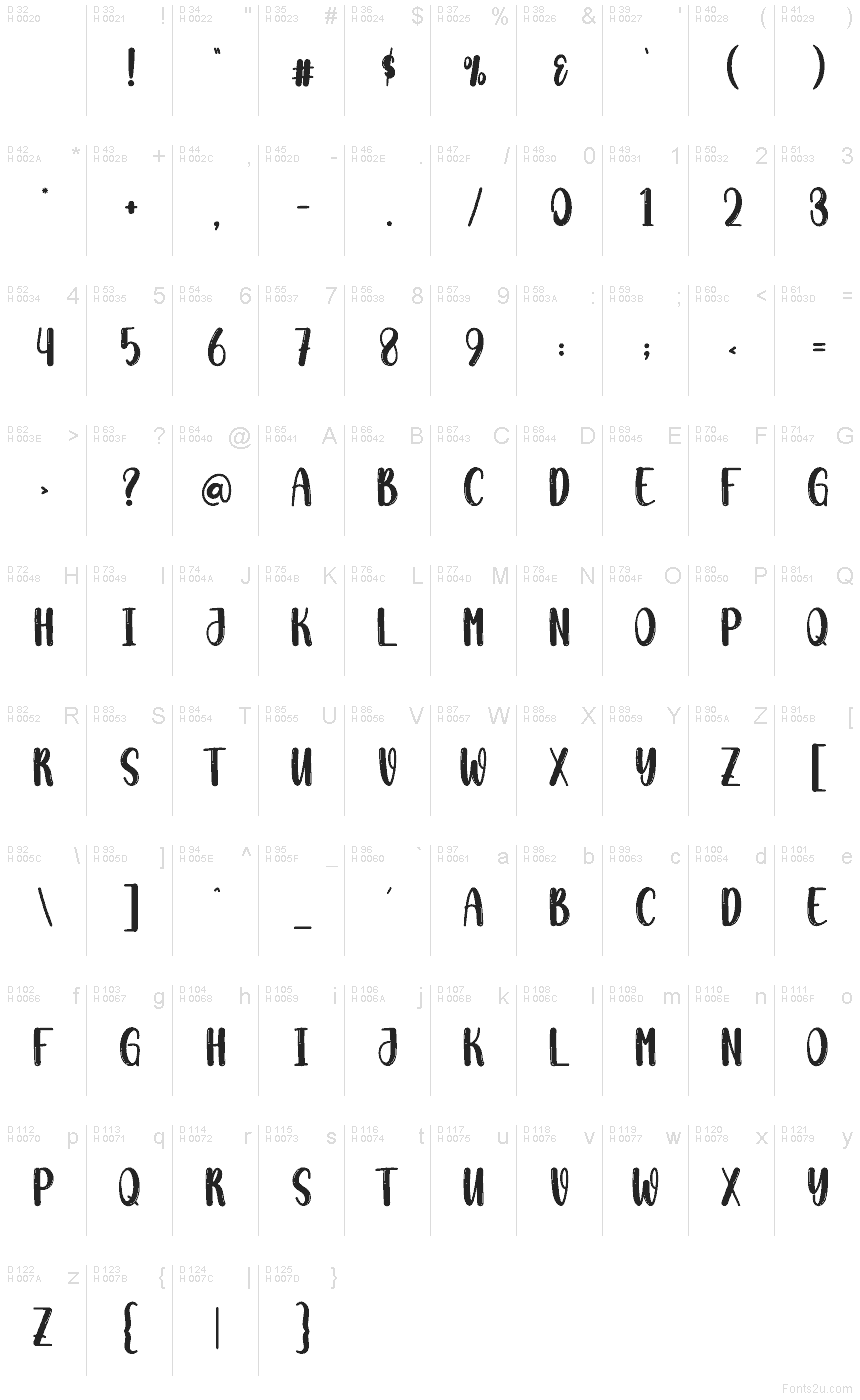
Wonder Winter
Wonder Winter font is a decorative display font from Scratchones with a hand-painted and textured appearance that contributes to its expressive and lively mood. Rounded characters add softness to each glyph, while irregular letter lines give it a more casual feeling. Skinny characters make it appear as if this condensed font type was crafted using a thin brush or pen.
Among various possibilities for use, Wonder Winter is great for titles (movie/book), packaging designs (drinks/chips), logotypes (brands/firms), printed works (books/catalogs), posters, invitation cards (birthdays/weddings), labels, advertisements, signage projects, product packages/labels among other ideas that you may have for quick exploration using this free decorative font!